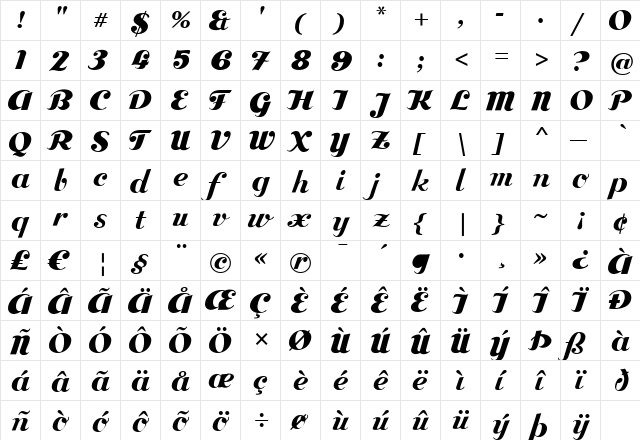
Bolero Regular
| Foundry | Canada Type / Rebecca Alaccari |
Design Context for Bolero Typeface
Bolero is a composed and adaptable typeface that performs quietly and consistently across a wide range of design contexts.